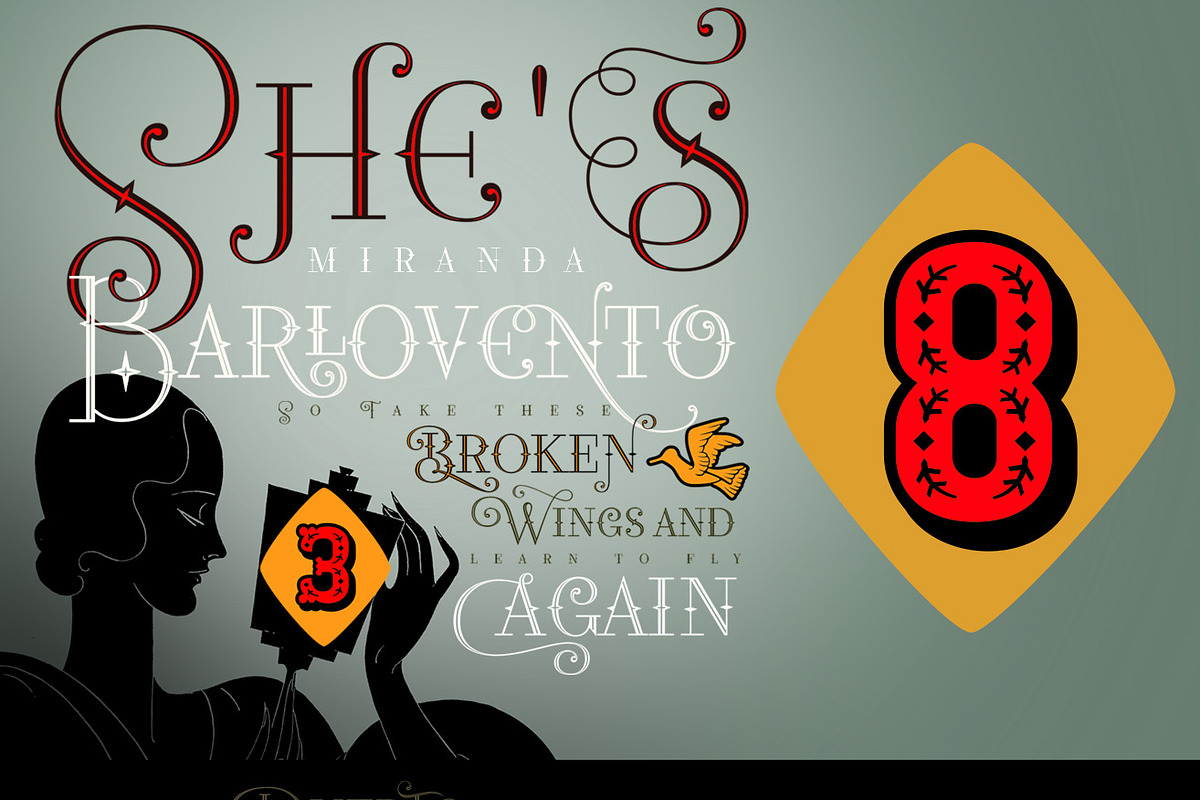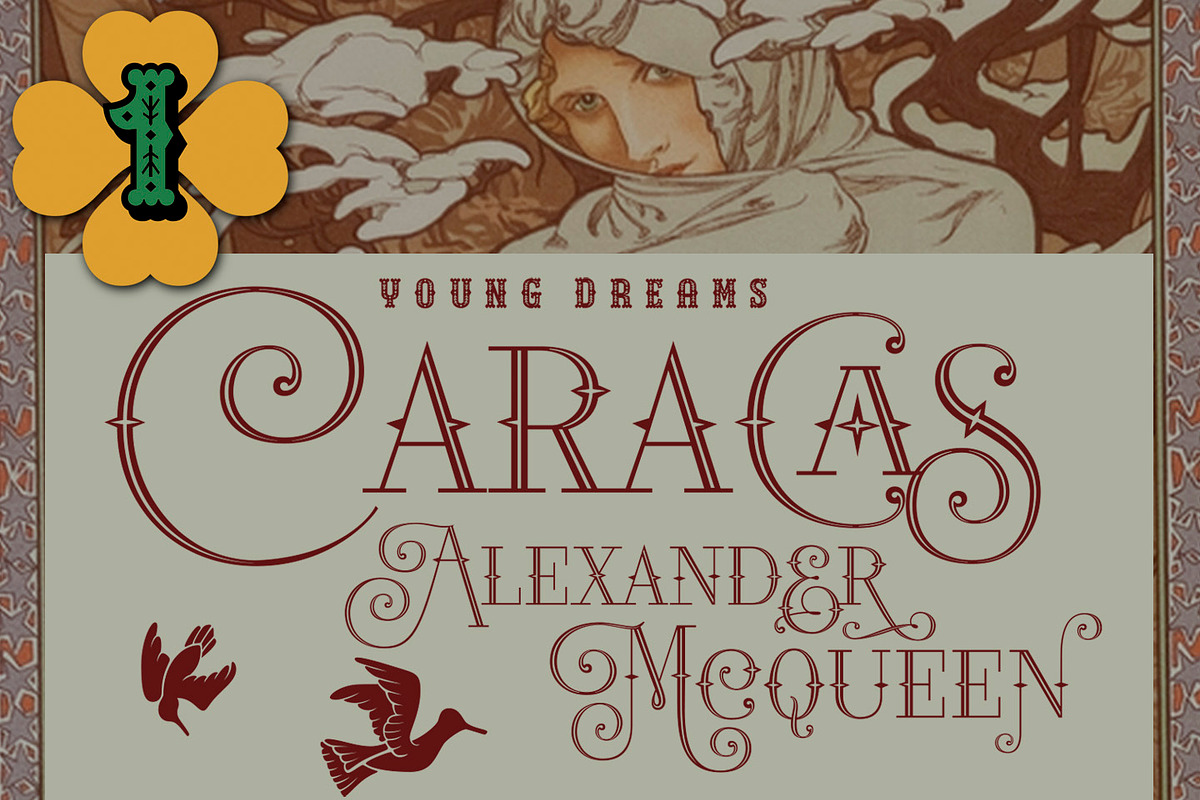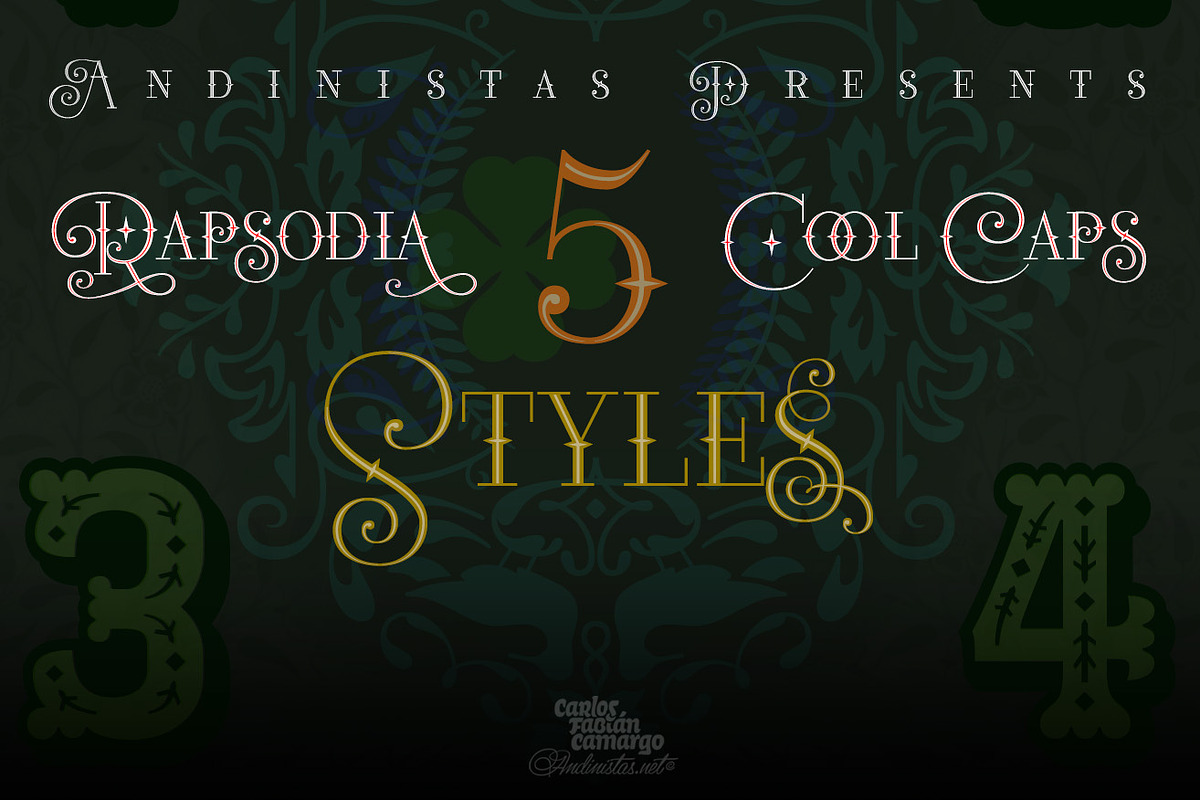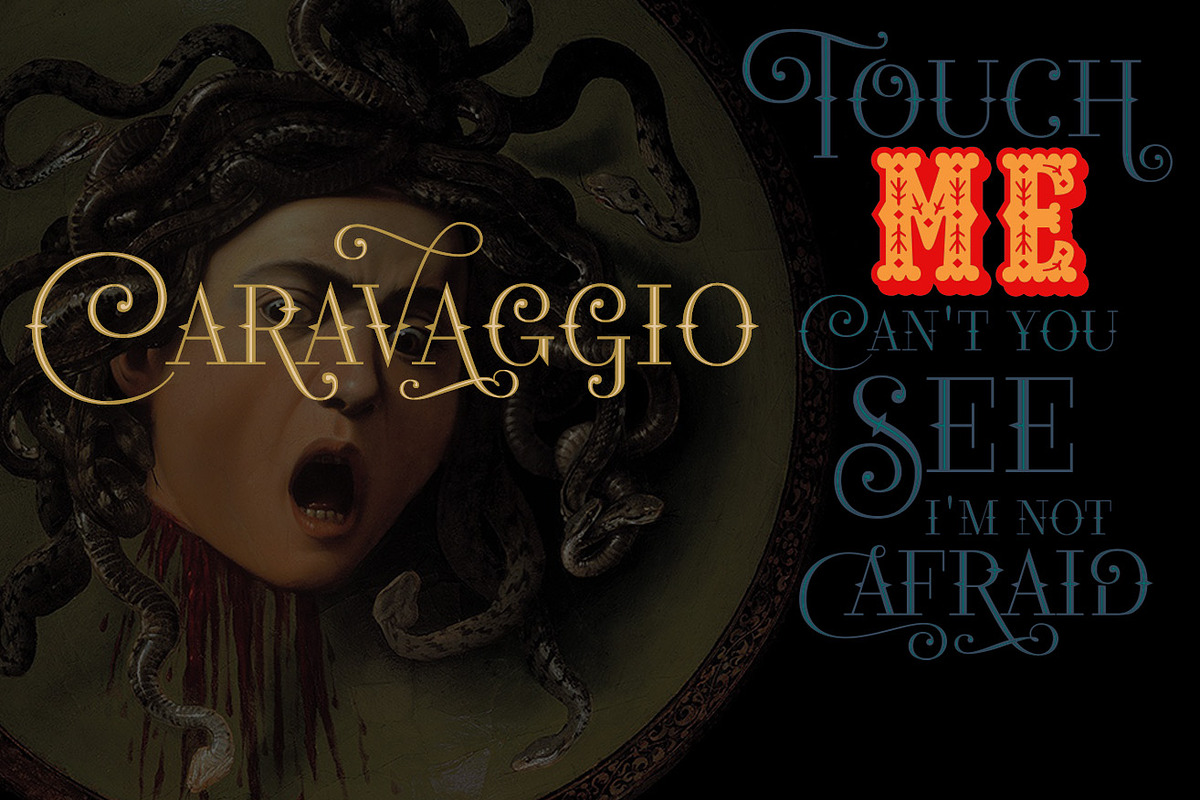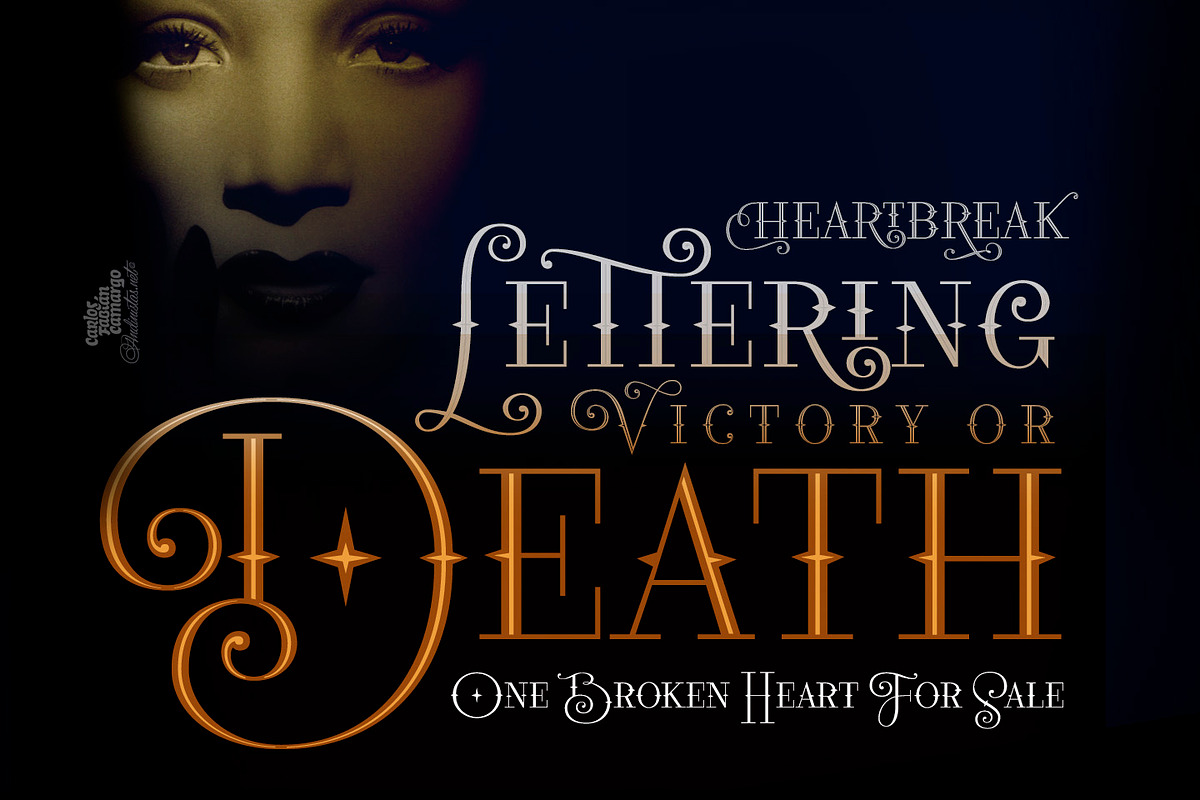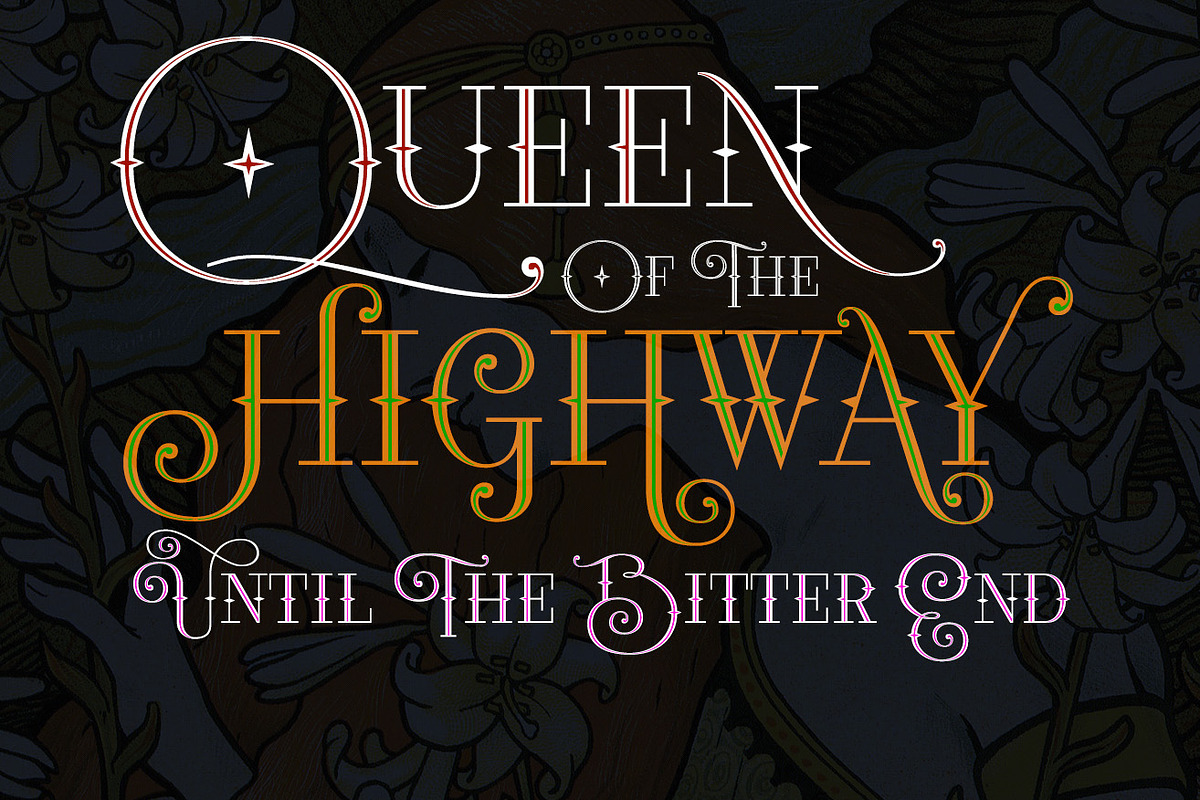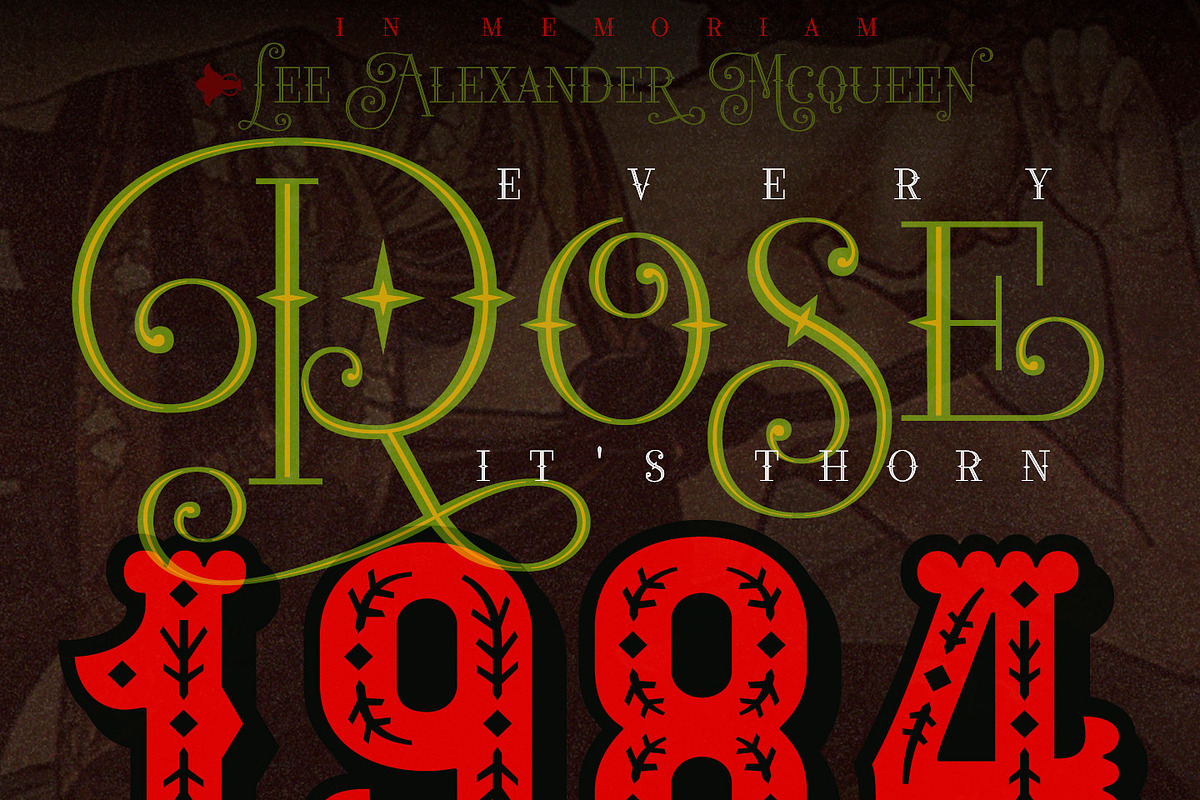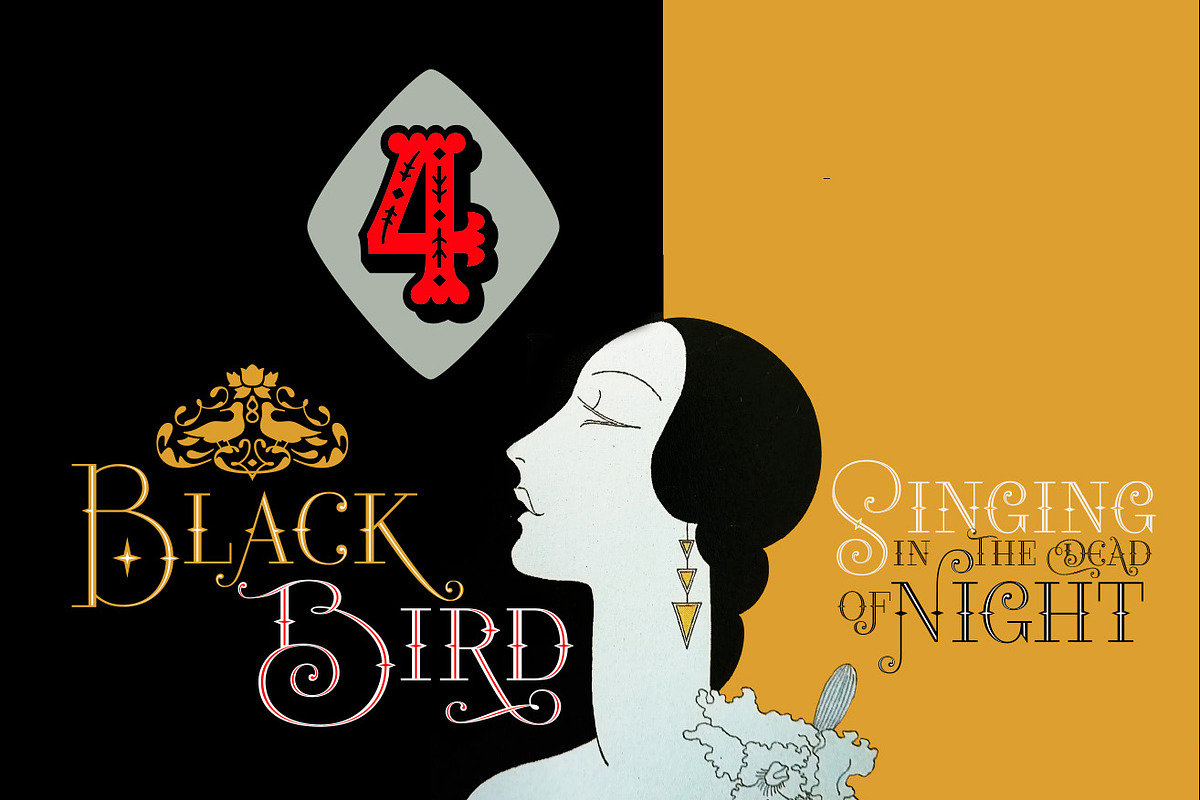
Rapsodia Type Family / 5 fonts
@andinistas presents Rapsodia, an uncommon roman caps font with serif and high contrast, designed by #carlosfabiancg. Rapsodia was inspired by Stunt Roman, Speedball Textbook for Pen & Brush Lettering by Ross F. George. Rapsodia has a high and sweetened amount of contrast between thin and thick with drop-shaped finishes, reminiscent of Didot, Baskerville and Bodoni. Its artistic accent translates into Tuscan letters drawn with a flexible tip pen.
In that order, Rapsodia combines the visual theatricality of an art nouveau corset, with creative historical classics such as Liza Minnelli, Gene Simmons and Freddie Mercury. Its calligraphic curlers full of Mannerist virtuosity are unnatural in Roman caps typefaces with serif. That is why its internal vein in ascending and descending flourishes protrudes with Chicano circus details like triangular diamonds located in vertical strokes.
Rapsodia serves to design words and phrases in fine publications, for this reason most of its upper and lower case letters communicate feelings with classic and luxurious sensation through substitutes, ligatures and alternatives for beginning, middle or end of word, functioning as initials and terminals.